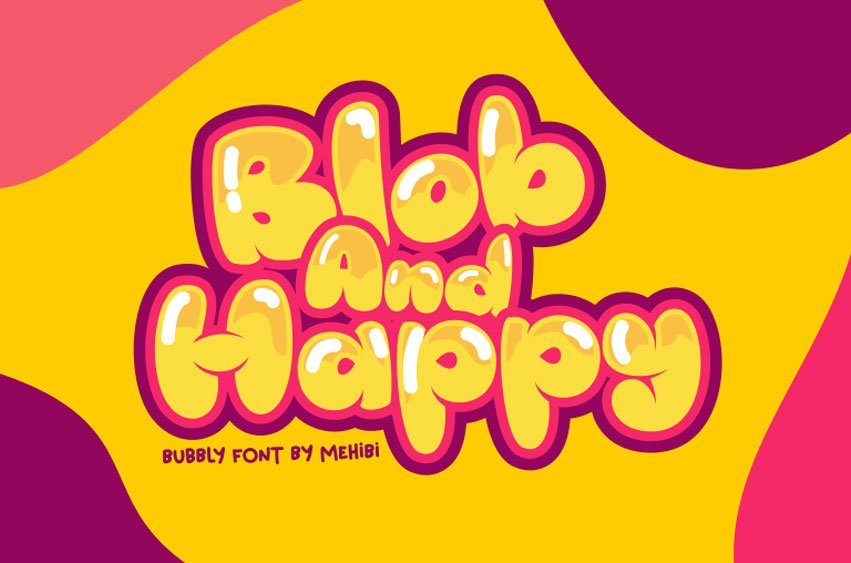
Blob And Happy Font is all about the smile.
Due to its cute round shape and a memorable name, this smiling face will attract children’s eyes easily – suitable for posters, titles, games, cartoon movie credits, children’s products, and more.